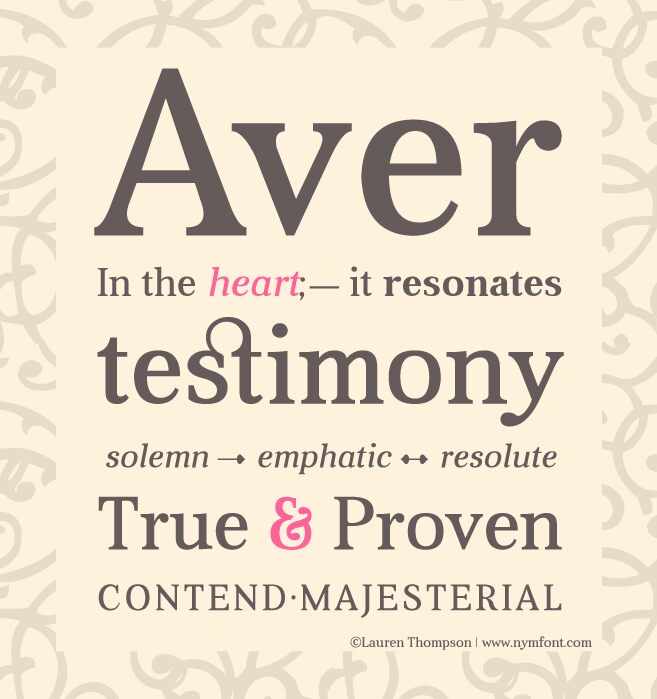
Aver Italic by Lauren Thompson is a free high-contrast serif font with an elegant, strongly slanted profile. Broad curved strokes meet fine hairlines and sharply tapered serifs, producing lively shapes that feel refined but not overly delicate.
The lettering can create a graceful editorial voice for magazine covers, fashion branding, and literary publishing, where its sweeping forms suit sophisticated photography and illustration. Boutique hotels, fragrance labels, and formal event materials are also a natural market for its polished proportions and pronounced italic movement.
Aver contains 750 glyphs, including many Greek and Cyrillic characters.
Completed and released in May of 2012, Aver began very humbly as the first traditional or old-style serif typeface design by Lauren Thompson in June of 2009. (The 'as yet un-named serif' shown in this post depicts the earliest Aver concept: http://www.nymfont.com/2009/06/preview-of-upcoming-fonts.html)
Three years brewing and proven to be true, Aver asserts emphatically and solemnly.